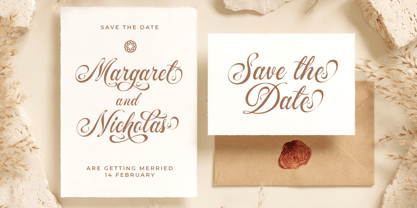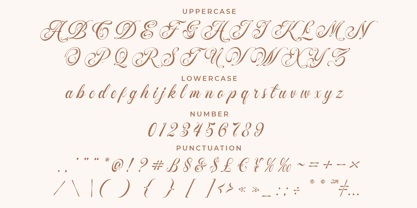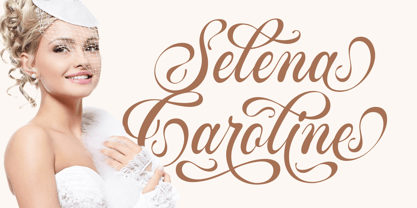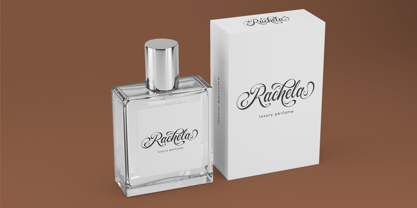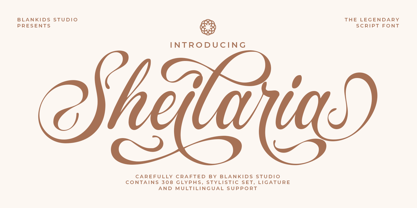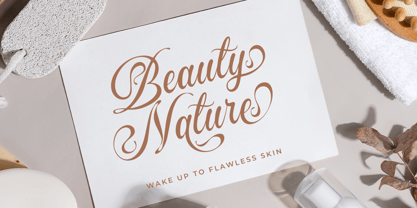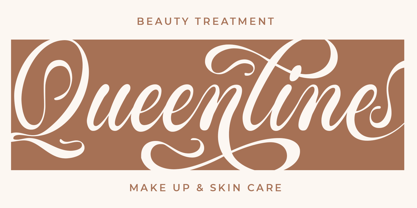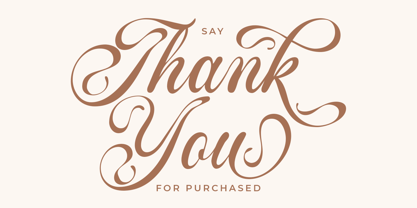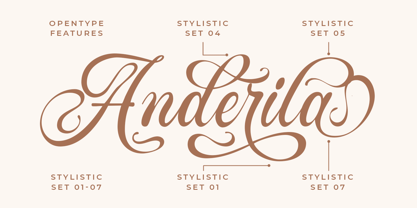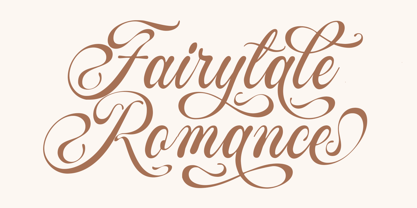
Sheilaria
por Blankids
La familia tipográfica Sheilaria fue diseñada por Bangkit Tri Setiadi y publicada por Blankids. Sheilaria contiene 1 estilos. Más información sobre esta familia
Hello, awesome people! This time, we have a new font called Sheilaria a legendary Script font by Blankids Studio.
Sheilaria a legendary Script font is made for any professional project branding, such as logotype, wedding invitation, watermarks, poster, branding, promotions, product packaging, etc. Every letter has a script calligraphy style.
Sheilaria font includes a full set of modern clean script uppercase and lowercase letters, numerals and punctuation. This font has a script calligraphy style. See the previews above to get some inspiration on how to use them. Happy designing!